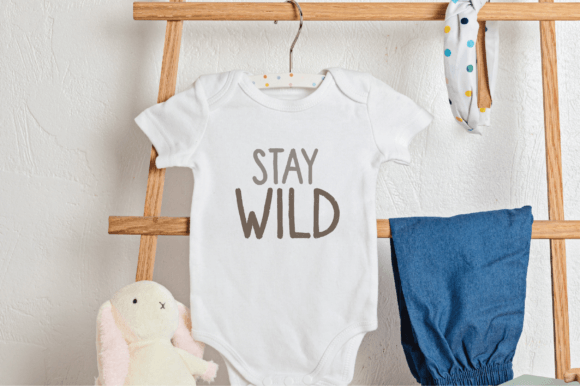
Kids Chalk Font
Kids Chalk is a fun and playful font. It’s perfect for teacher and children use like a handwritten. Full of creativity to create menu, worksheet, card or anything.